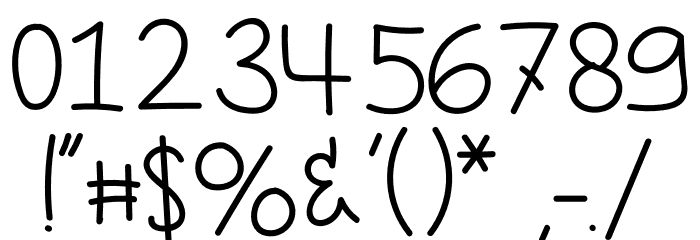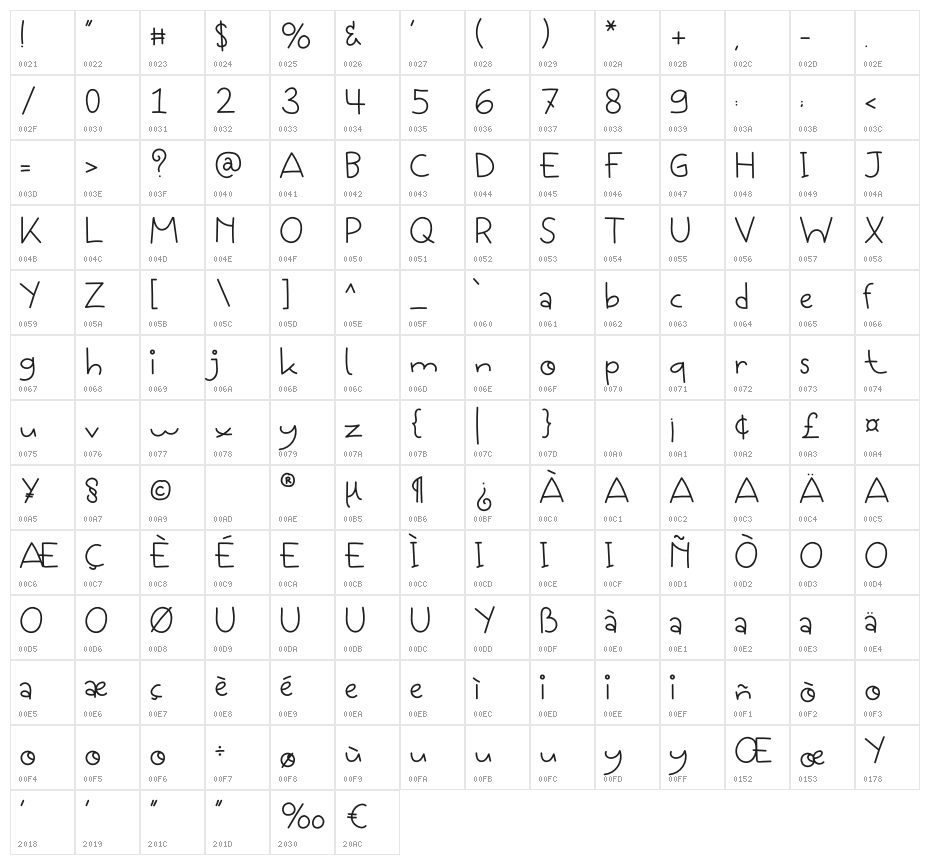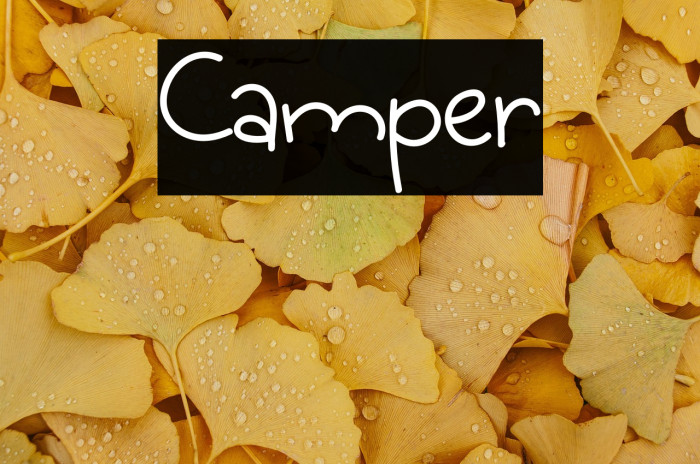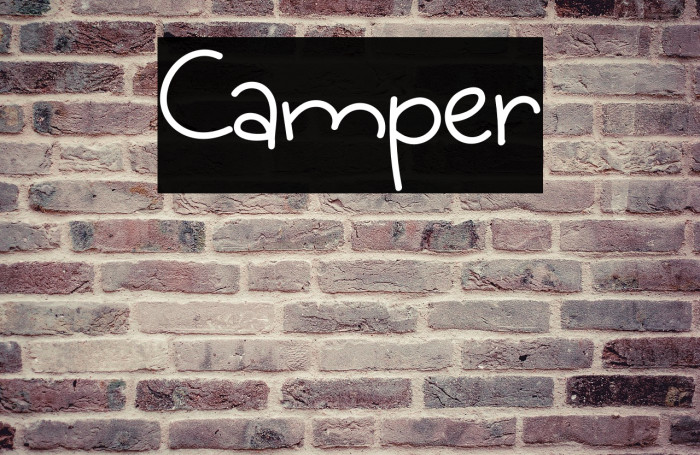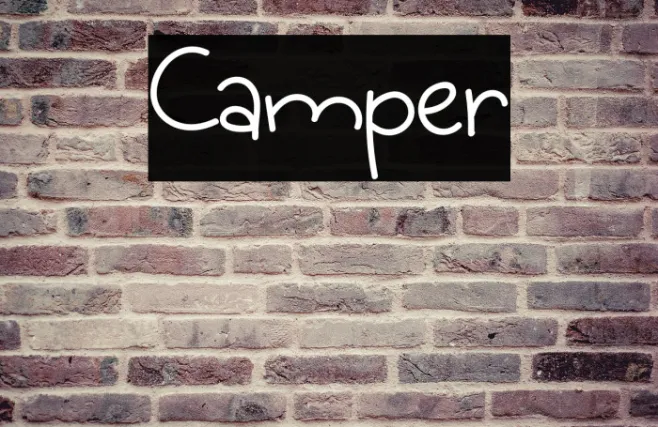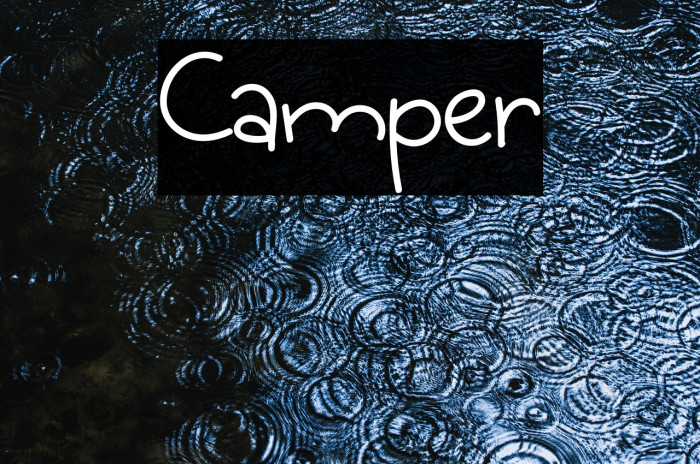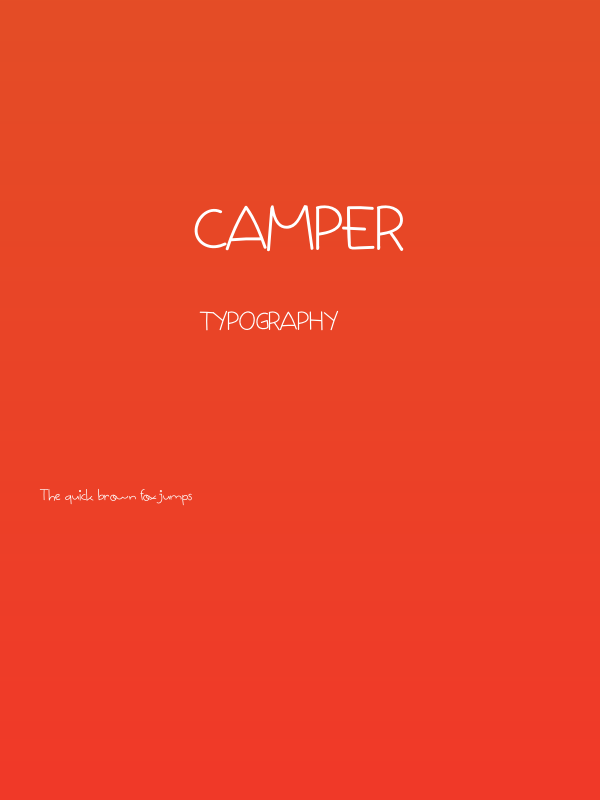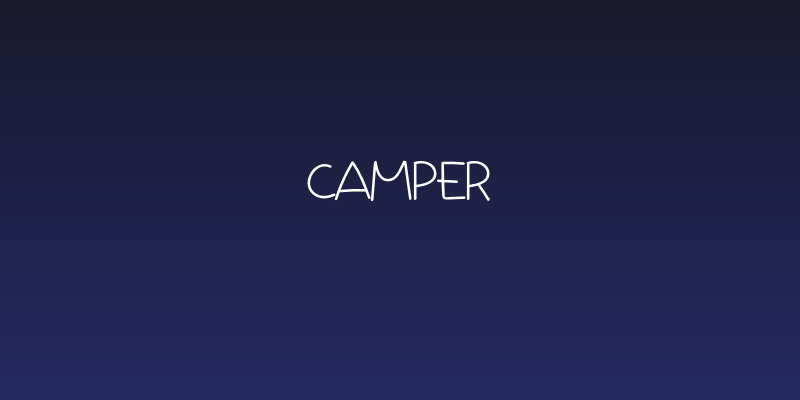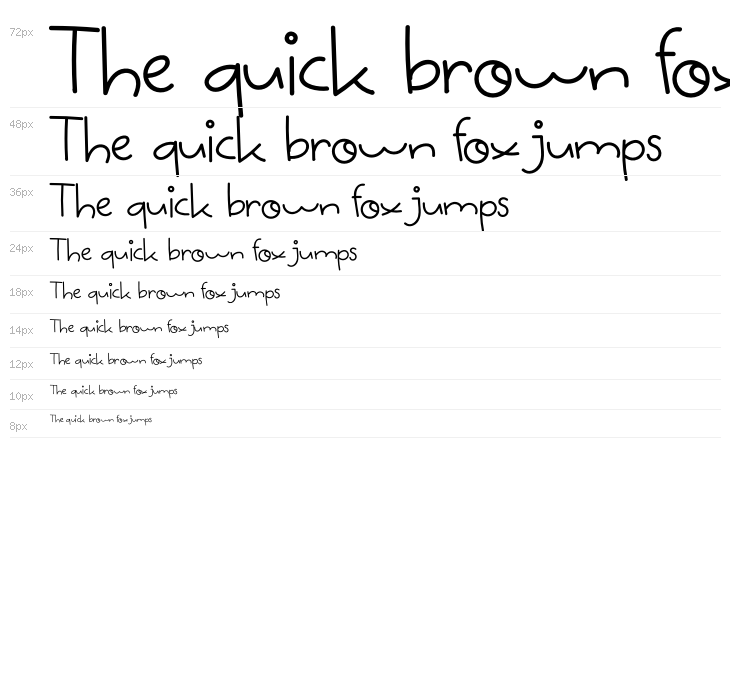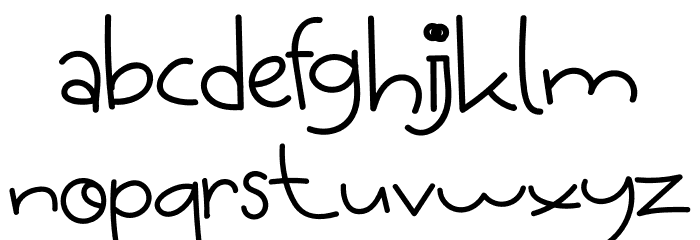
Camper Font
Camper Description
This font features a playful and casual handwritten style with a slightly irregular and organic appearance. The characters are rounded and have a friendly, approachable feel, making it ideal for informal and creative projects. The uppercase and lowercase letters maintain a consistent flow, with smooth curves and a relaxed structure. Numbers and special characters are designed to match the overall whimsical aesthetic, adding to the font's charm. The strokes are uniform in thickness, contributing to a cohesive look across all characters.
| Use Case | Headlines, Informal text, Creative designs |
| Proposed Projects | Ideal for children's books, greeting cards, casual branding, and creative posters. |